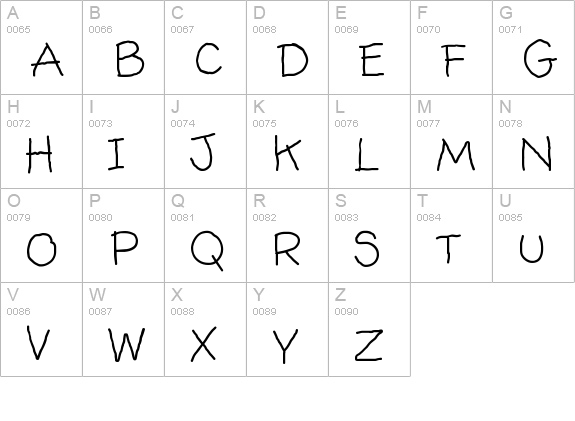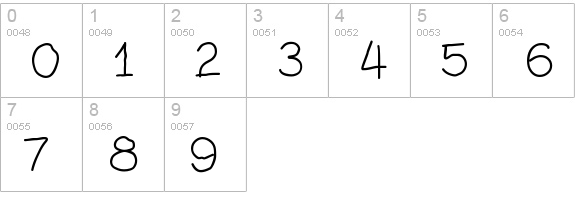
Hog Book - HMK is a comfortable, highly readable variant in the Hog typeface family \xE2\x80\x94 well suited to long-form body text, articles, and editorial content.
The Hog Book - HMK font is a charming and versatile typeface that exudes a sense of warmth and friendliness. With its playful yet elegant design, this font is perfect for a wide range of creative projects, from branding to invitations to social media graphics. What makes Hog Book - HMK font even more appealing is that it is available for free! That's right, you can easily download this delightful font at FontsMarket.com without any cost. Embrace the whimsical and inviting vibes of Hog Book - HMK font in your designs today, and watch as it brings a touch of joy and personality to your work.